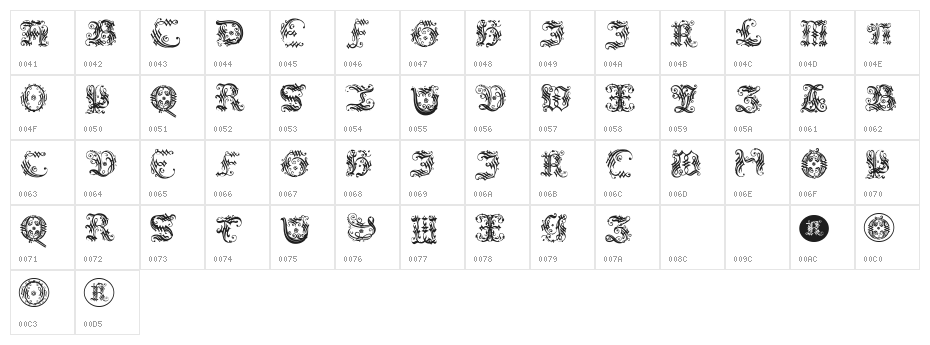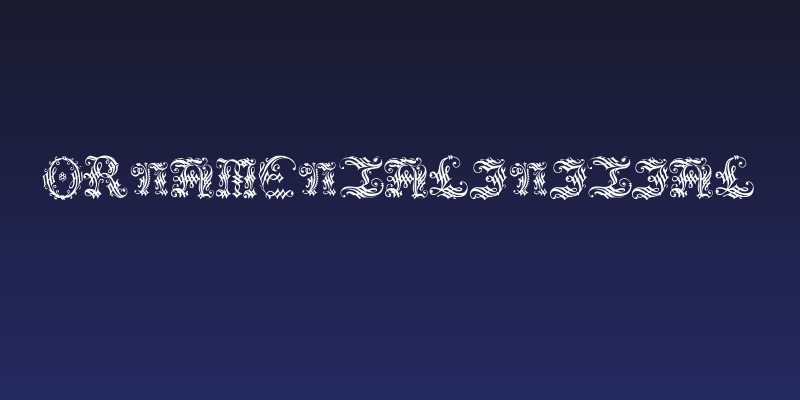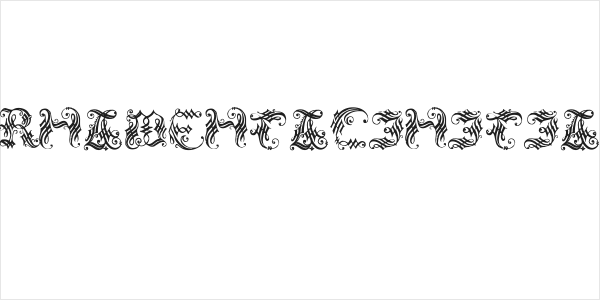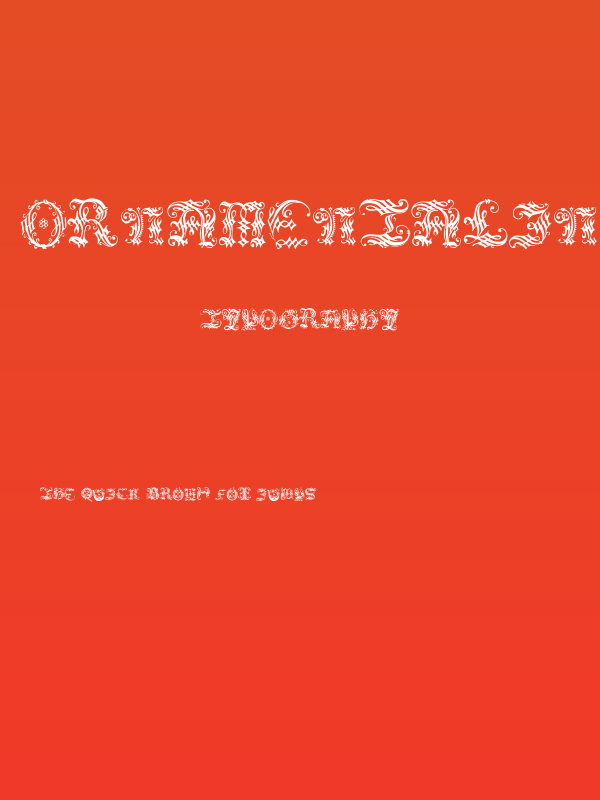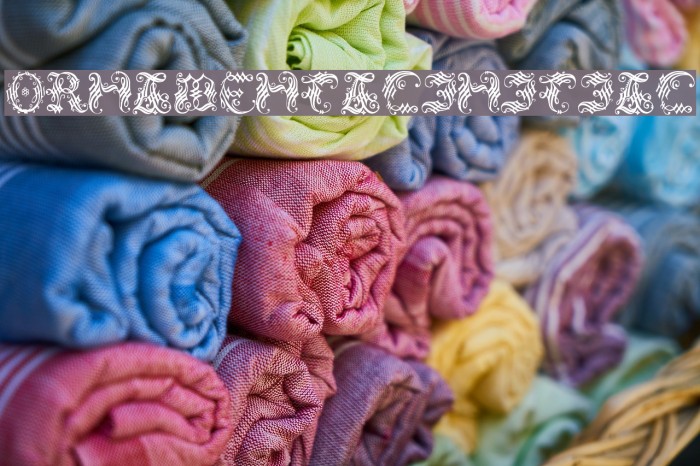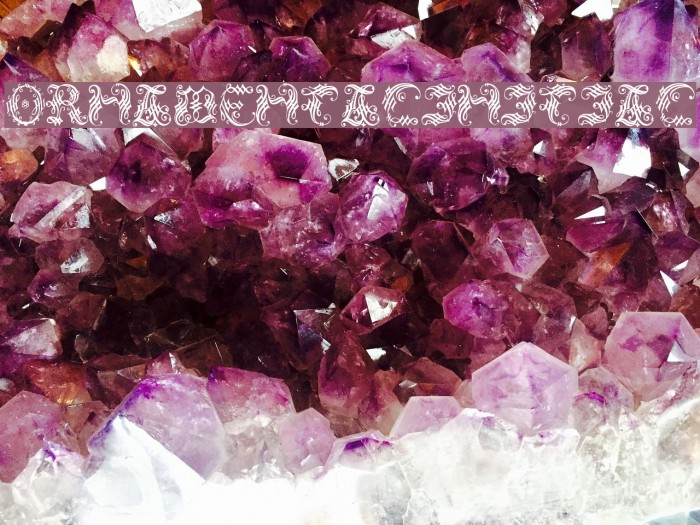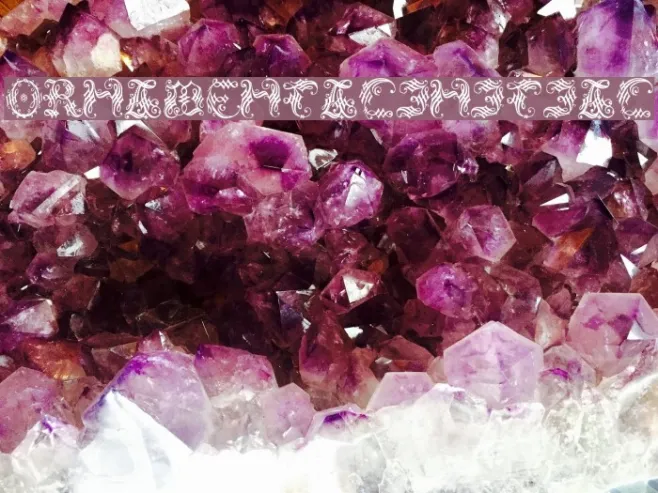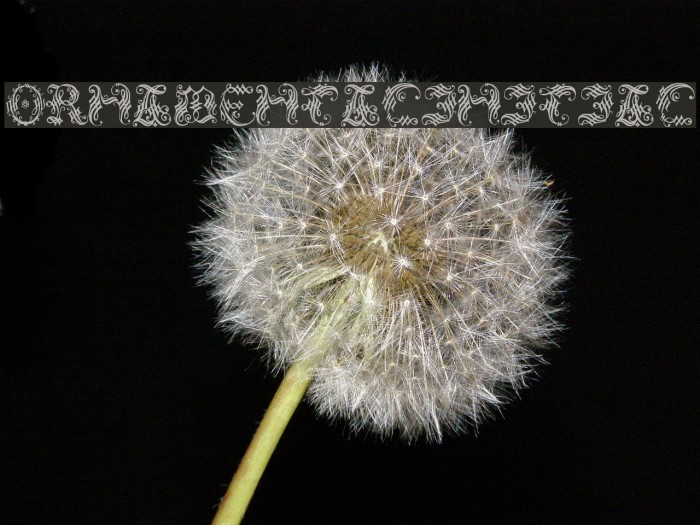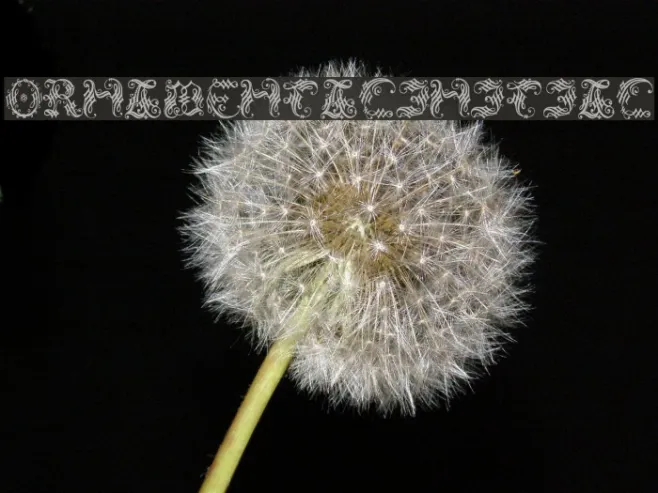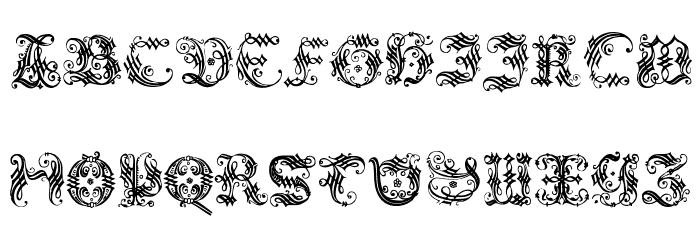
OrnamentalInitial Font
✎ Gothic
OrnamentalInitial Description
This font is an elaborate and highly decorative typeface characterized by intricate flourishes and ornamental details. Each letter is adorned with swirling patterns and embellishments, giving it a regal and antique appearance. The design is reminiscent of historical manuscripts and decorative initials used in illuminated texts. The complexity of the design makes it stand out, capturing attention with its artistic flair. The font is best suited for applications where a touch of elegance and historical charm is desired. Its ornate style may not be suitable for body text but excels in decorative and headline uses.
| Categories | Gothic |
| Overall Style | Vintage |
| Use Case | Headlines, Logos, Decorative purposes |
| Proposed Projects | Ideal for wedding invitations, historical themed projects, book covers, and decorative headlines. |